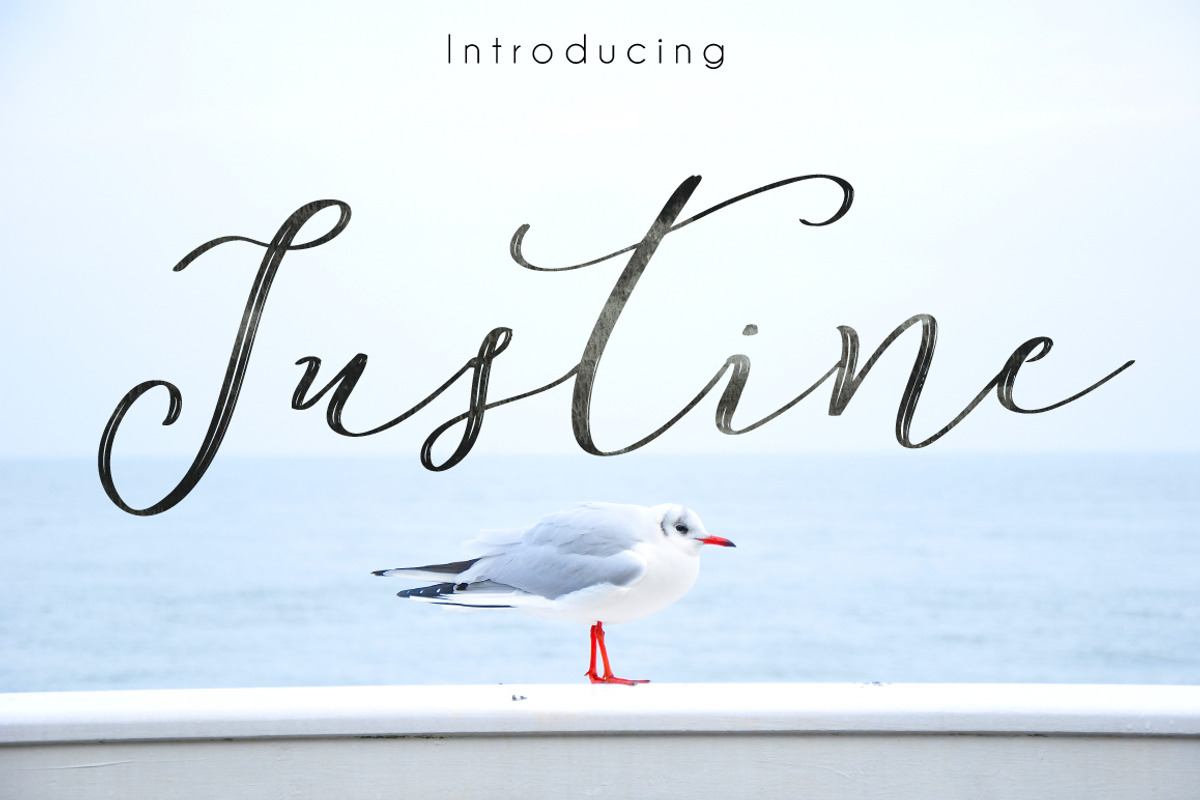
Please note, to use this font for commercial purposes, you must purchase the full version. Justine Flowers is an elegant and whimsical handwritten font that brings a touch of floral beauty to your designs. With its delicate letterforms and graceful curves, this font is perfect for creating invitations, branding, logos, and other creative projects that require a charming, nature-inspired style. Whether you're working on a wedding invitation, a boutique brand, or a creative floral design, Justine Flowers adds a graceful, organic feel to your work. Test it out and enjoy free download access for personal use. Experience the beauty and elegance of Justine Flowers Font Free Download before purchasing the commercial license. Add a touch of floral elegance to your designs with Justine Flowers.